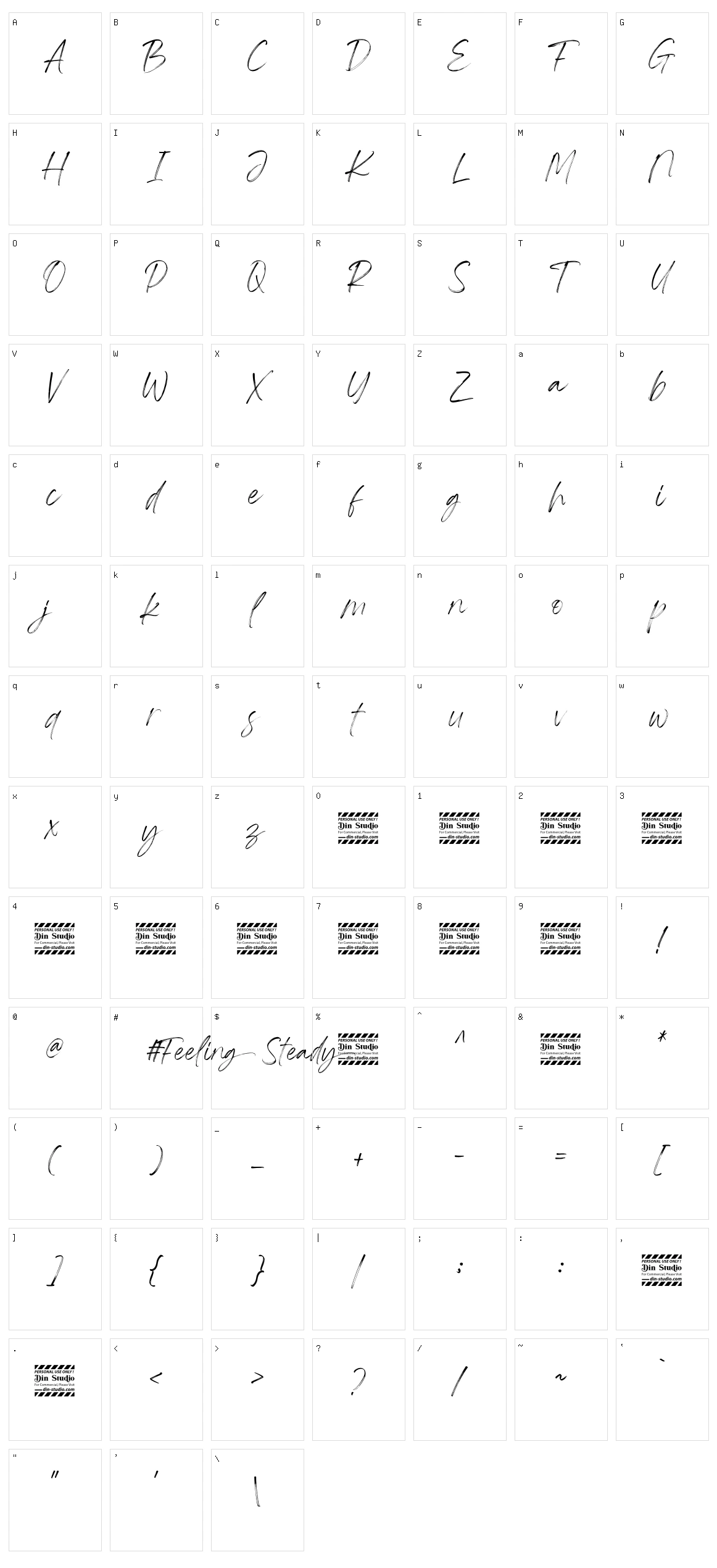
The free font Feeling Steady is carefully designed by Din Studio, showcasing a thoughtful balance of creativity and usability and falls under the Script font style. When you download the ZIP file, it contains only 602.6 KB of font files, making it lightweight and quick to download. Please review the license details below to understand permitted usage and distribution rights. If license information is not available, we recommend using this font for personal projects only or contacting the author directly for commercial usage permissions.